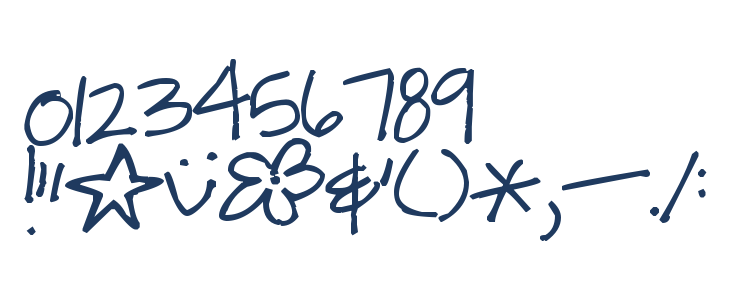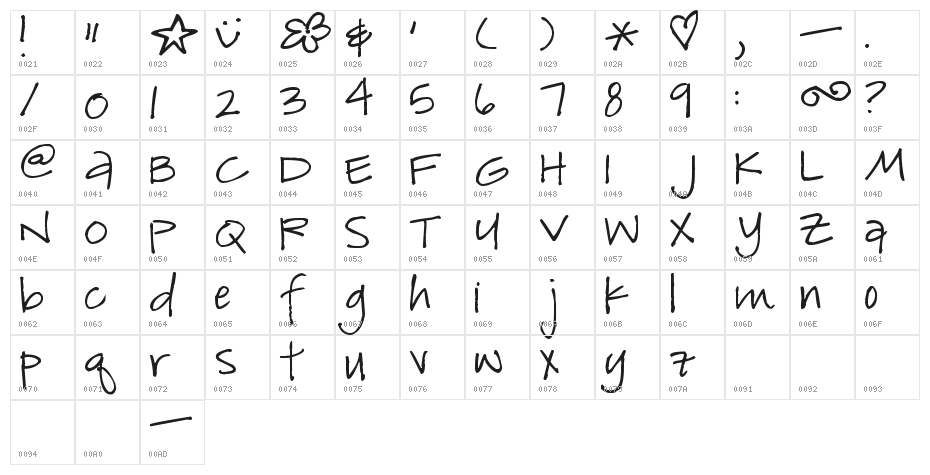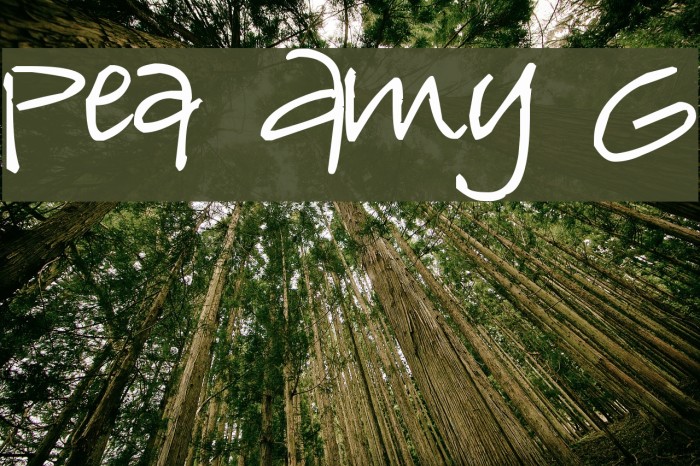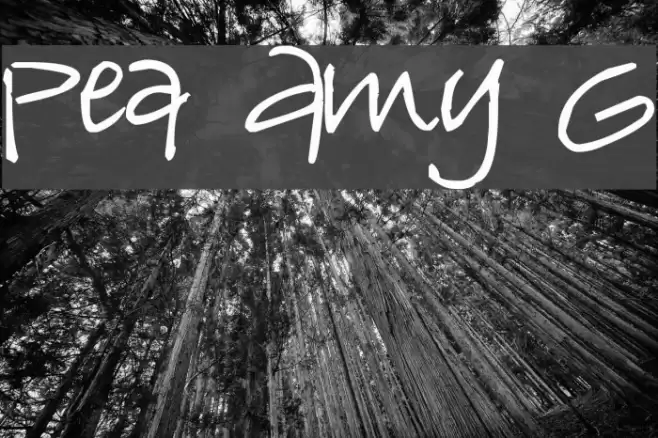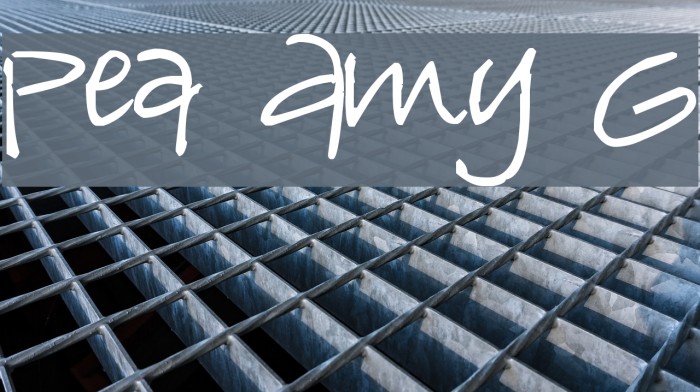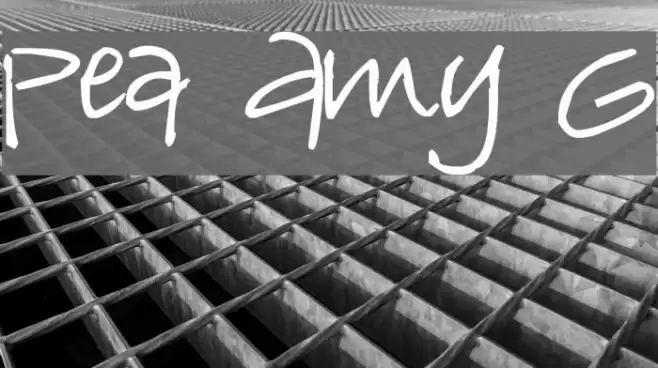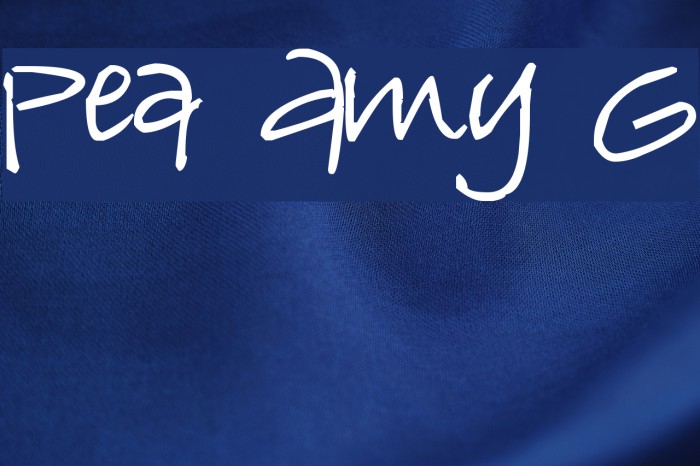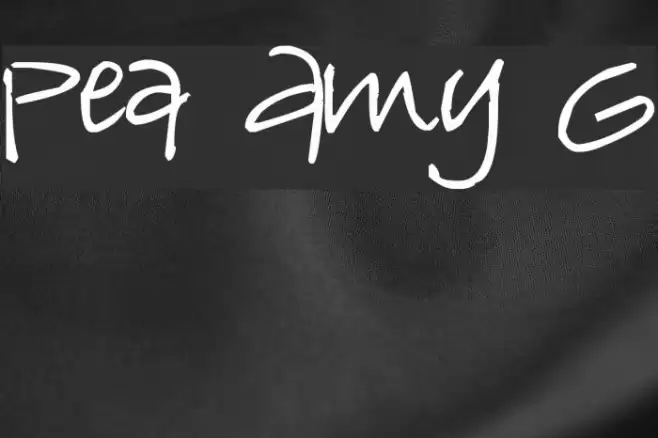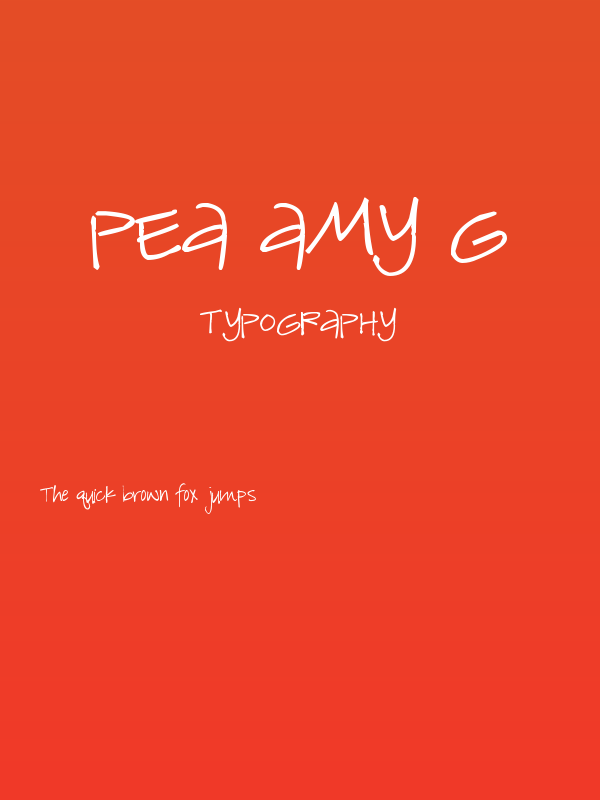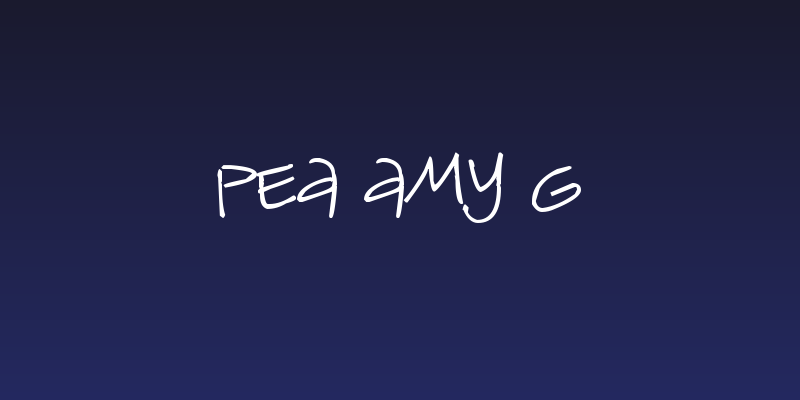
Pea Amy G Font
Pea Amy G Description
This font exhibits a playful and casual handwritten style, characterized by its uneven strokes and organic flow. The letters are slightly slanted, giving it a dynamic and lively appearance. The uppercase and lowercase letters maintain a consistent style, with rounded edges and a natural, freeform look. Numbers and special characters follow the same informal aesthetic, enhancing the font's cohesive feel. The overall design suggests a personal touch, reminiscent of quick, spontaneous handwriting.
Overall StyleCasual, Playful
Use CaseLogos, Headlines, Informal Text
Proposed ProjectsIdeal for personal notes, greeting cards, informal invitations, and creative projects that require a personal touch.